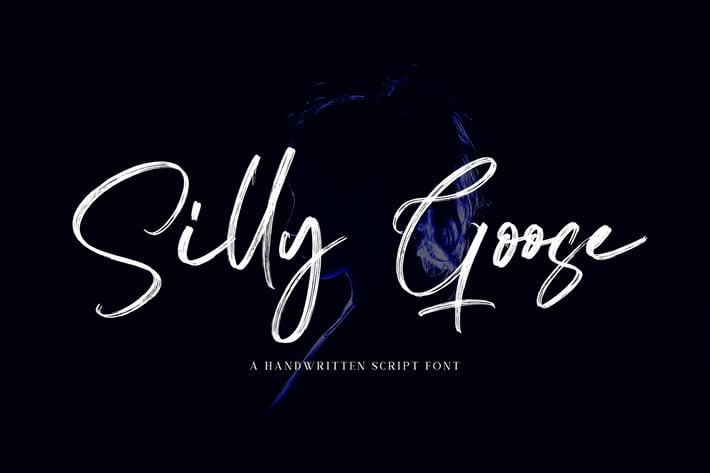
Silly Goose - Signature Font
Silly Goose is a simple, textured, brushed and elegant handwritten font. Fall in love with its incredibly versatile style and use it to create beautiful designs!
- Basic Latin A-Z and a-z
- Numbers
- Symbols